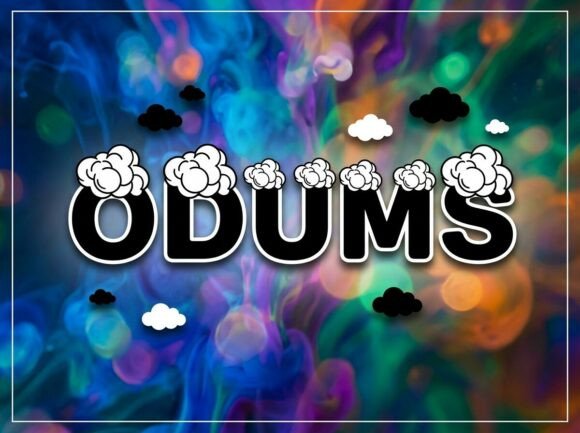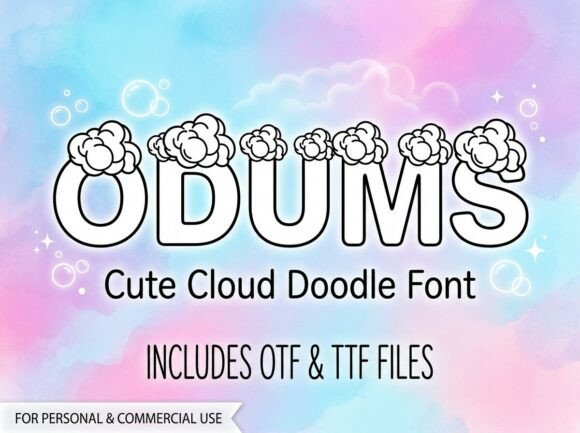
Introduction to Odums Font
Let your imagination drift with Odums, a dreamy display typeface that captures a “lighthearted-and-ethereal” soul.
This font features bold, rounded sans-serif letterforms, each topped with fluffy, hand-drawn cloud clusters With its soft rhythmic flow and playful personality, Odums is the premier choice for independent children’s bedroom decor, whimsical weather app interfaces, creative nursery branding, and high-impact “head-in-the-clouds” social media headers.